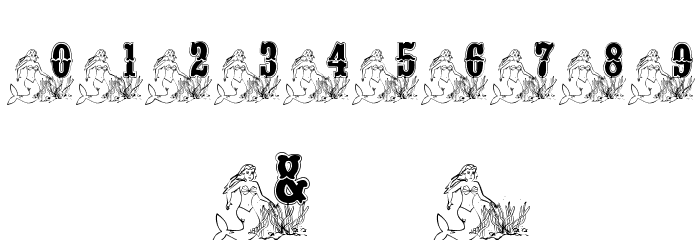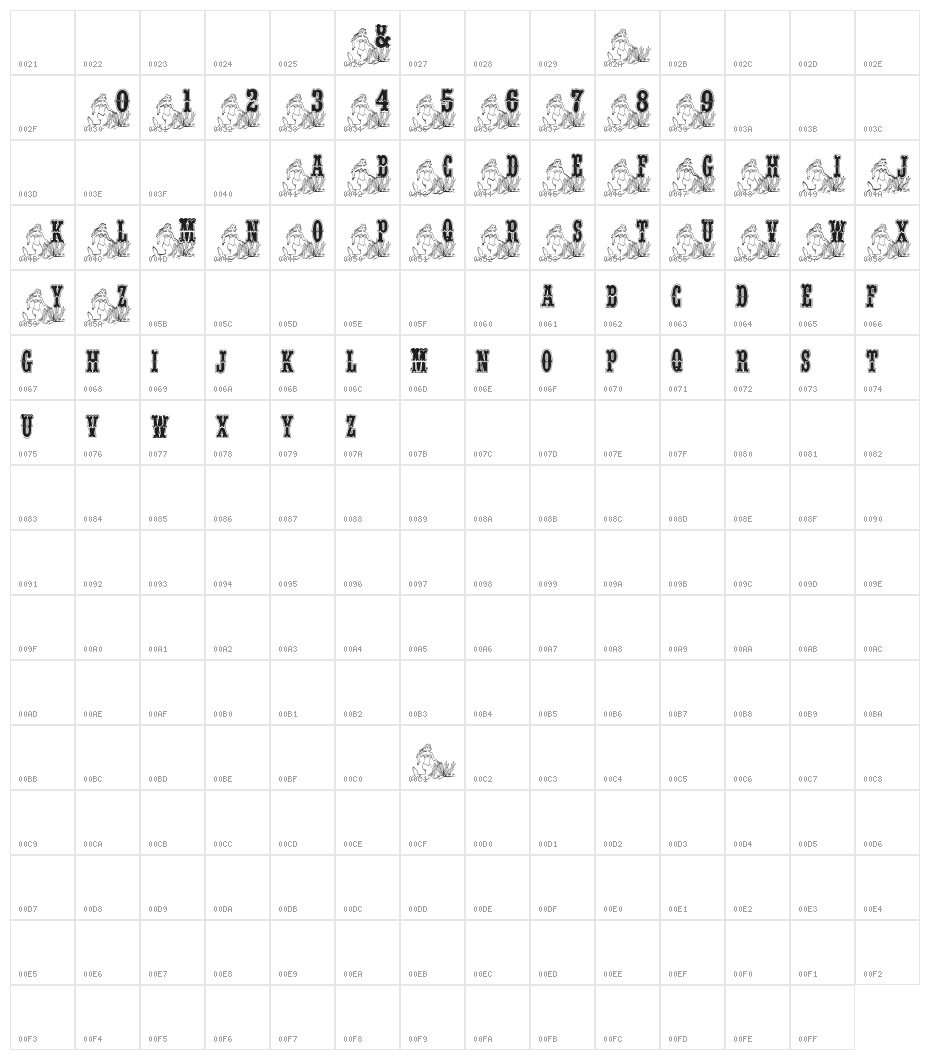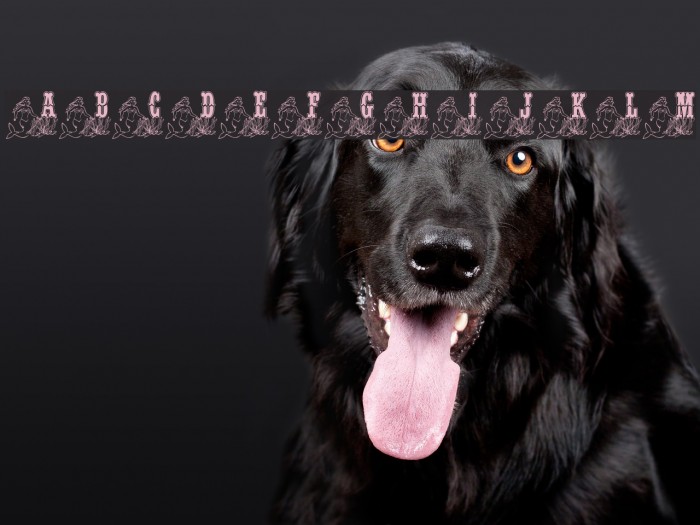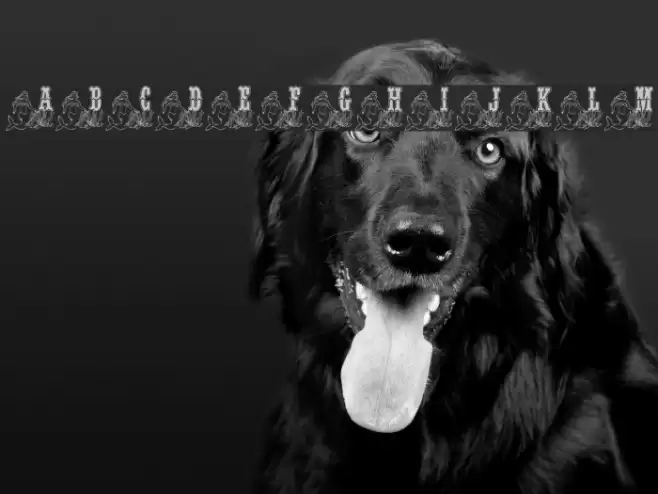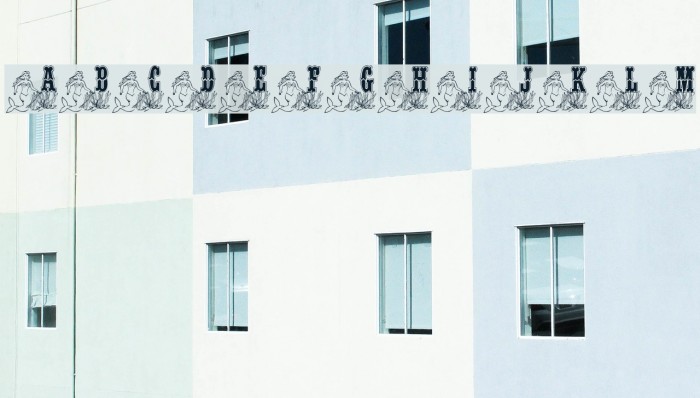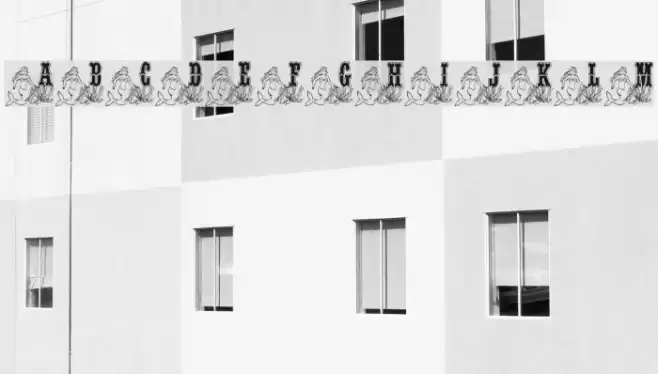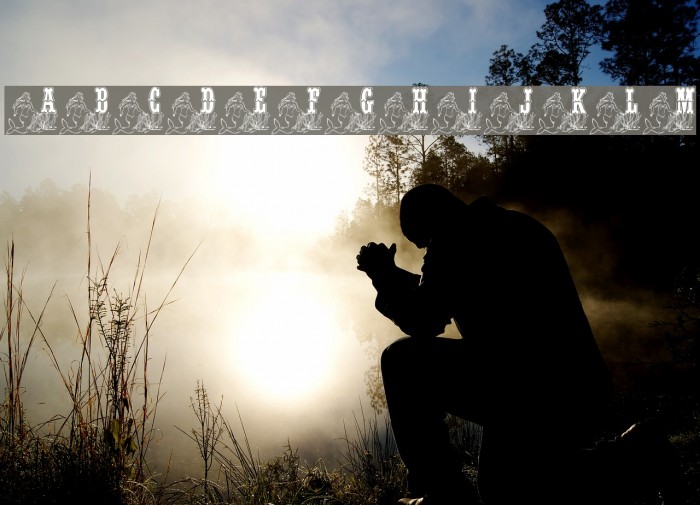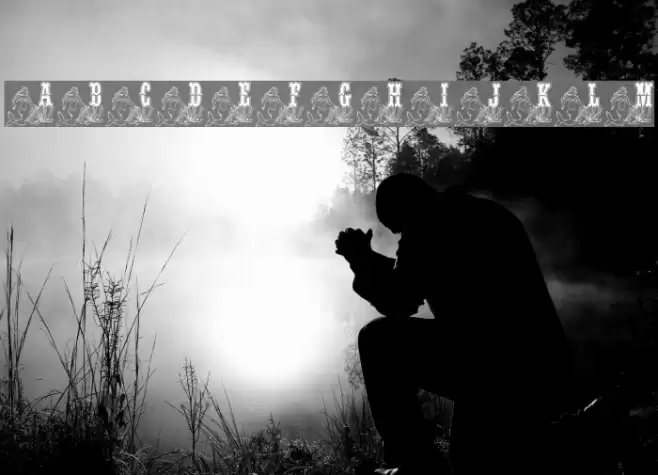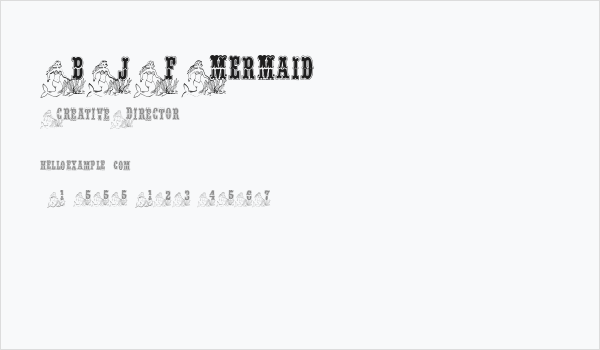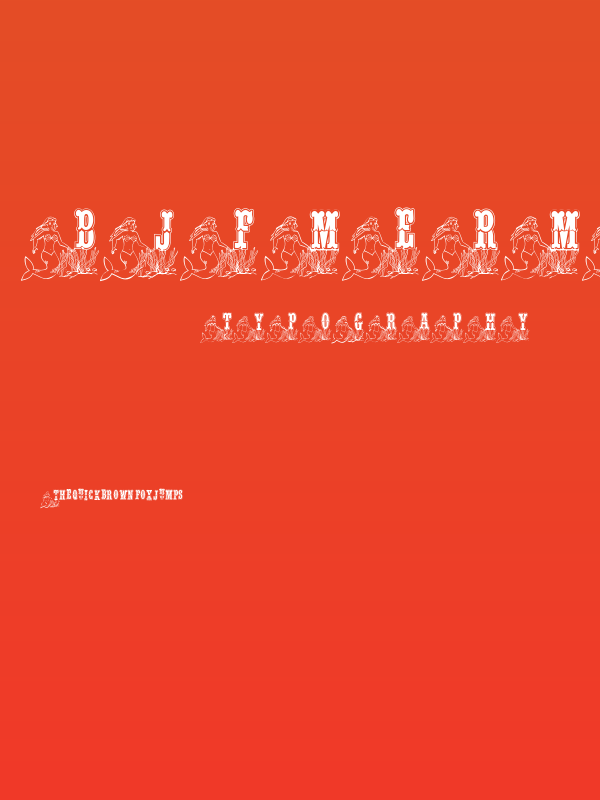
BJF Mermaid Font
BJF Mermaid Description
This font features a unique blend of decorative and bold elements, characterized by its intricate mermaid illustrations accompanying each letter and number. The uppercase letters are bold with a strong outline, giving them a striking appearance. The mermaid illustrations add a whimsical and artistic touch, making the font stand out. The numbers follow the same style, ensuring consistency throughout. This font is perfect for projects that require a playful yet bold aesthetic, such as children's books, fantasy-themed designs, or creative branding projects.
Use CaseHeadlines, Logos, Invitations
Proposed ProjectsIdeal for children's books, fantasy-themed designs, creative branding, and playful invitations.